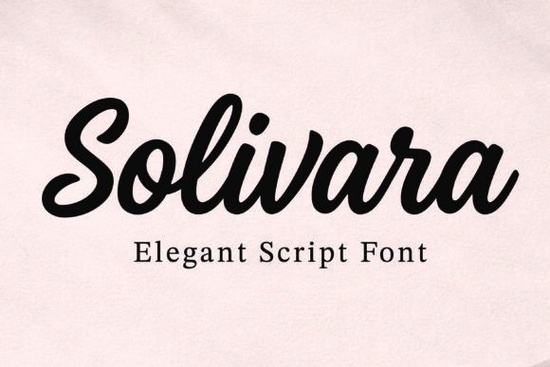
Solivara Font is a versatile and stylish script font that brings a touch of elegance to any design project. Whether you're working on logos, wedding invitations, or social media graphics, this font offers a refined look that feels both modern and timeless. Its smooth flowing strokes and graceful curves make it ideal for creating a personal and sophisticated feel in your work.
Designed with natural handwriting and classic calligraphy in mind, Solivara Font adds a unique character to your designs without sacrificing readability. It’s perfect for those who want to add a handwritten touch to their projects while maintaining a professional appearance. The font works well in both digital and print formats, making it a go-to choice for designers, crafters, and small businesses alike.
If you’re looking for a script font that balances style with functionality, Solivara Font is an excellent option. Its versatility means it can be used across a wide range of applications, from branding materials to personalized stationery. The font’s clean lines and fluid motion give it a modern edge, while its soft curves evoke a sense of warmth and authenticity.
What Makes Solivara Font Stand Out?
Solivara Font stands out due to its elegant yet approachable design. Unlike some script fonts that can feel overly ornate or difficult to read, this font maintains clarity while still offering a decorative flair. It’s especially useful for projects that require a personal touch, such as wedding invitations or custom packaging.
The font also includes a range of stylistic alternatives, allowing you to customize the look to fit your specific needs. This flexibility makes it a great choice for both beginners and experienced designers. Whether you're creating a simple quote or a complex logo, Solivara Font adapts well to different styles and layouts.
Best Uses for Solivara Font
Solivara Font is ideal for a variety of design needs. Here are some common applications:
- Logos and Branding: Add a refined and memorable touch to your brand identity.
- Wedding Invitations: Create elegant and personalized invitations that reflect your style.
- Social Media Graphics: Use it to make your posts stand out with a handwritten feel.
- Packaging Design: Enhance product packaging with a stylish and professional look.
- Quotes and Signatures: Perfect for adding a personal signature or inspirational quotes.
Its adaptability means it can be used in both casual and formal settings, making it a valuable addition to any designer’s toolkit.
How to Get the Most Out of Solivara Font
To get the most out of Solivara Font, consider experimenting with different sizes and spacing. This can help you achieve the right balance between visual appeal and legibility. Pairing it with a clean sans-serif font can also create a nice contrast that enhances the overall design.
When using the font for print projects, make sure to test it at the intended size and resolution. This ensures that the curves and strokes remain sharp and clear. For digital use, check how the font looks on different screens and backgrounds to maintain consistency.
If you're new to using script fonts, start with simple designs and gradually move to more complex ones. This will help you understand how the font behaves in different contexts and how to best highlight its strengths.
Whether you're a designer, crafter, or small business owner, Solivara Font offers a stylish and practical solution for adding a personal touch to your work. Its combination of elegance and usability makes it a valuable asset for any creative project.